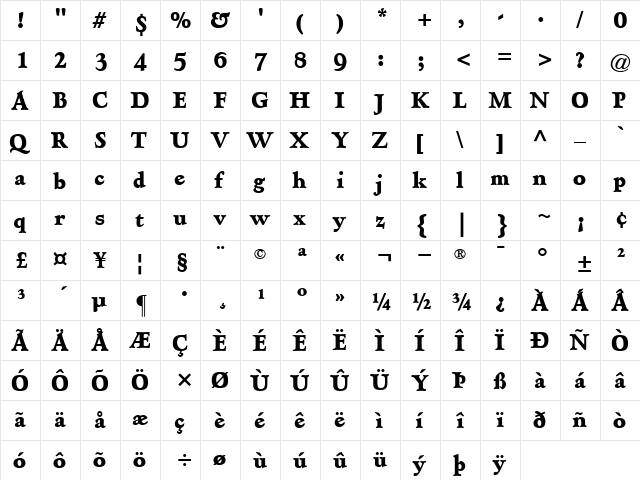
Hadriano-CondensedExtraBold Extra Bold Font Preview
Design Context for Hadriano-CondensedExtraBold Typeface
Hadriano-CondensedExtraBold offers clean, dependable letterforms without strong stylistic allegiance, making it a practical choice for designers who need flexibility. The heavy weight commands attention and anchors typographic hierarchies. The condensed width makes it efficient for tight spaces without sacrificing legibility.